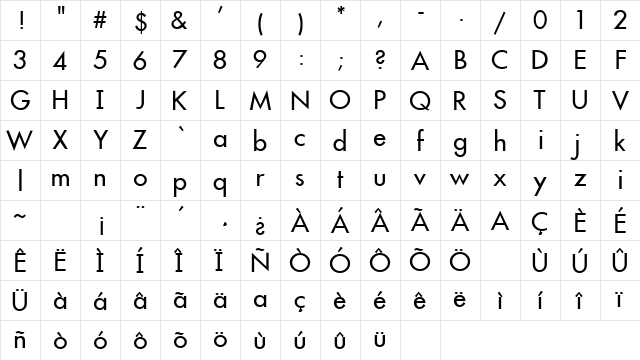
ScholHudson Regular
Design Context for ScholHudson Typeface
ScholHudson takes a measured approach to typography — its balanced proportions and neutral character make it a reliable workhorse for both digital and print work.